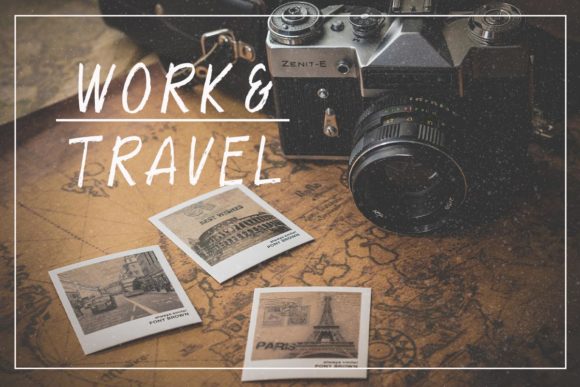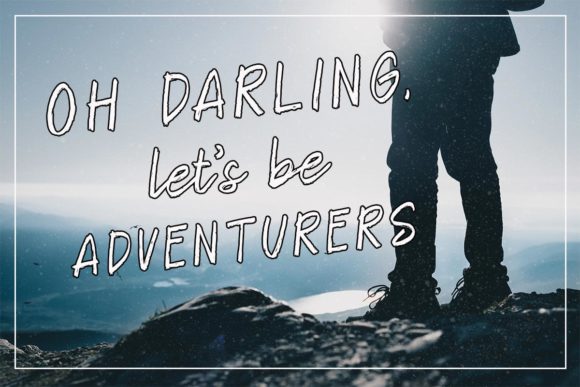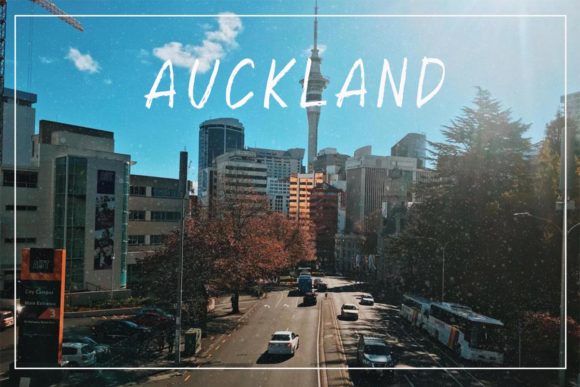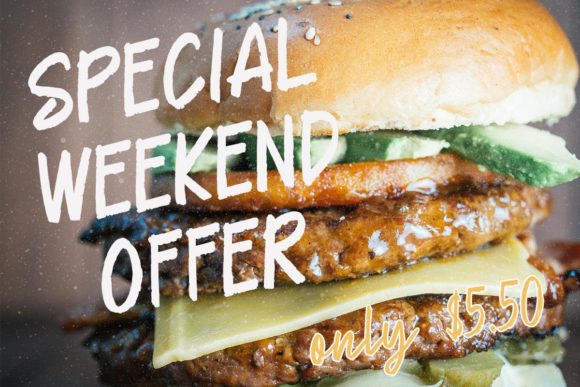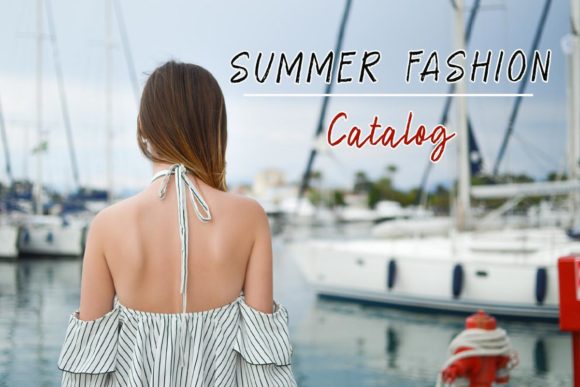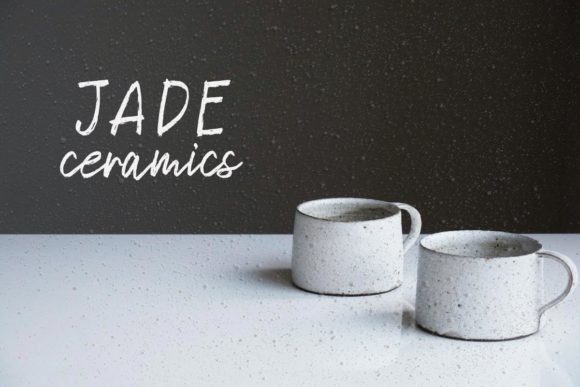
Unleash Your Creativity with the Bear Claw Font
Do you ever find yourself staring at a blank page, waiting for inspiration to strike? It’s a familiar feeling for many creatives. The blank page, the cursor blinking impatiently, and the pressure to come up with something amazing. But what if you had the perfect tool to break the silence and bring your ideas to life?
Meet the Bear Claw Font, a rough and textured handwritten font that’s sure to elevate your designs and leave a lasting impression. Simple, yet unique, this font is perfect for adding a touch of personality to your work. Whether you’re a seasoned designer or just starting out, the Bear Claw Font is a valuable addition to your toolkit.
Bear Claw Font Key Features
- Font Family: Bear Claw is a unique, hand-drawn font designed for creative and artistic purposes.
- Size: Bear Claw is available in a single font size, suitable for a wide range of applications, from small text to large headings.
- Resolution: Designed to be resolution-independent, ensuring crisp and clear rendering at any resolution or size.
- Unique Characteristics: Features a distinctive, hand-crafted feel with irregular shapes, subtle imperfections, and a natural, organic look.
- Style Options: Available in a single style, perfect for creating a consistent, cohesive visual identity.
Bear Claw Font Review
First off, I have to say that the Bear Claw Font has some really great qualities that make it stand out. ✨ The unique blend of modern and rustic elements gives it a really interesting look that’s perfect for creating a sense of adventure or ruggedness in your design. The font is also highly customizable, with a wide range of weights and styles to choose from, making it easy to get the perfect fit for your project.
One of the things I love about Bear Claw is its versatility. ✨ It can be used for everything from outdoor gear packaging to branding for a craft brewery. And with its high-quality rendering, it looks great in both digital and print applications.
- ⚠️ Some of the more ornate elements can be a bit over-the-top for certain designs, so be sure to use them sparingly.
- ⚠️ The font may not be the best choice for projects that require a lot of fine detail or precision typography, as some of the letters can be a bit rough around the edges.
Overall, I’d say that the Bear Claw Font is a solid choice for designers looking to add a little extra flair to their projects. With its unique look and high level of customization, it’s a great option for anyone looking to create a truly unique design.
Bear Claw Font: A Practical Application Guide
For best results, use the Bear Claw font in bold or italic styles to add emphasis to your text.
Use the Bear Claw font in combination with bold or italic styles to create a sense of drama and emphasis in your designs.
Use the Bear Claw font to create eye-catching headings and titles in your presentations and documents.
The Bear Claw font is ideal for use in:
Outdoor and adventure-themed designs
Western and rustic-inspired designs
Emphasizing bold and dramatic text
Alternatives to Bear Claw Font
1. Rockwell Font
The Rockwell font is a serif font that is often used for titles and headings due to its strong, rugged feel. It’s commonly used in designs that require a sense of strength and durability. Rockwell is a good alternative to Bear Claw Font as it also has a strong, bold feel, but it’s more suitable for text-heavy designs.
Comparison: Rockwell Font is more versatile and can be used for body text, whereas Bear Claw Font is typically used for titles and headings.
2. Museo Font
The Museo font is a modern sans-serif font that is often used for titles and headings due to its clean, elegant feel. It’s commonly used in designs that require a sense of sophistication and elegance. Museo is a good alternative to Bear Claw Font as it also has a strong, bold feel, but it’s more suitable for designs that require a touch of sophistication.
Comparison: Museo Font is more modern and sleek compared to Bear Claw Font, which has a more rugged feel.
3. Playfair Display Font
The Playfair Display font is a luxurious serif font that is often used for titles and headings due to its elegant, high-end feel. It’s commonly used in designs that require a sense of luxury and sophistication. Playfair Display is a good alternative to Bear Claw Font as it also has a strong, bold feel, but it’s more suitable for high-end designs.